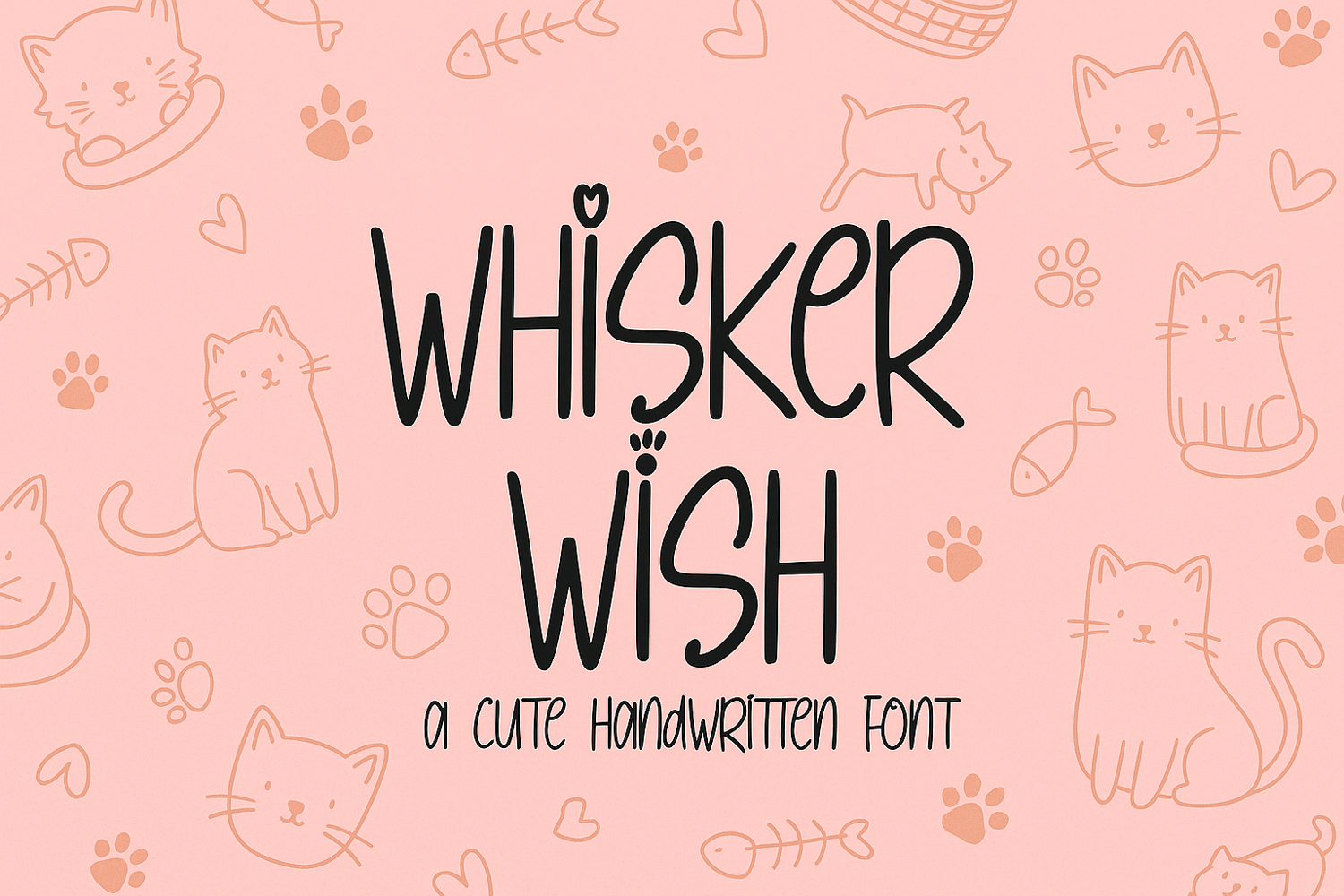
Whisker Wish
WHISKERWISH
Whisker Wish Cute Handwritten Font is a whimsical and charming script font. It features delicate lines, playful curls, and a hand-drawn feel. This font is perfect for adding a touch of cuteness and personality to invitations, greeting cards, posters, and more.